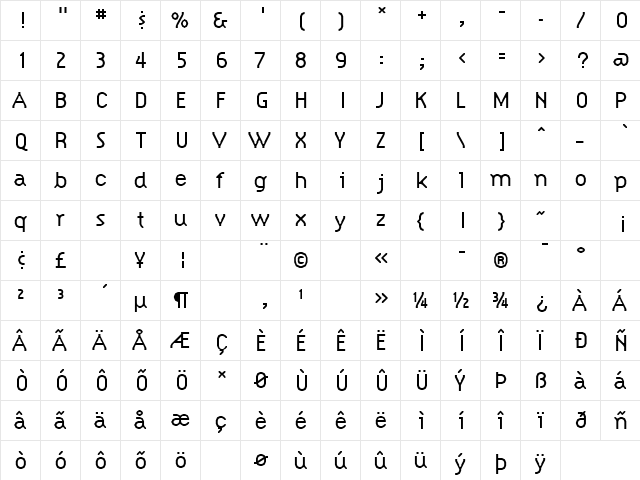
CitizenLight Regular
CitizenLight offers clean, dependable letterforms without strong stylistic allegiance, making it a practical choice for designers who need flexibility. The delicate stroke weight brings airiness and refinement to layouts.